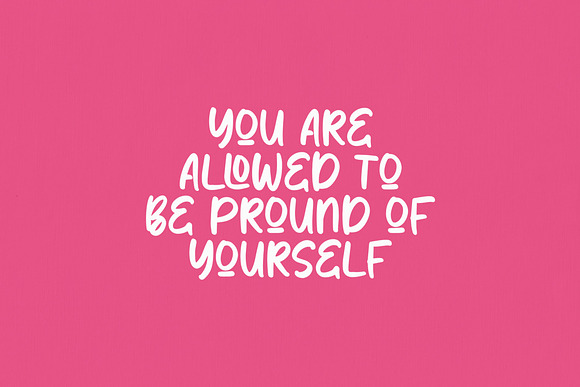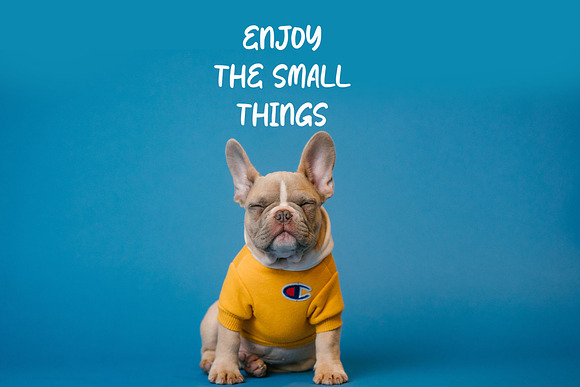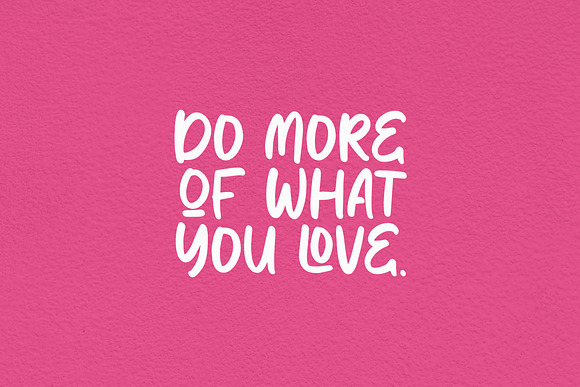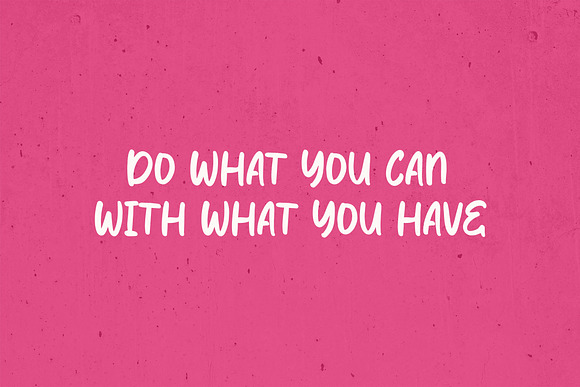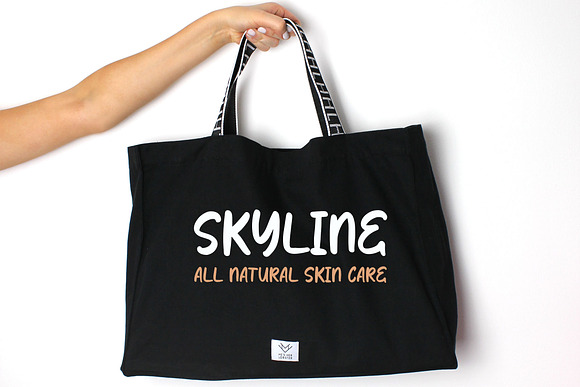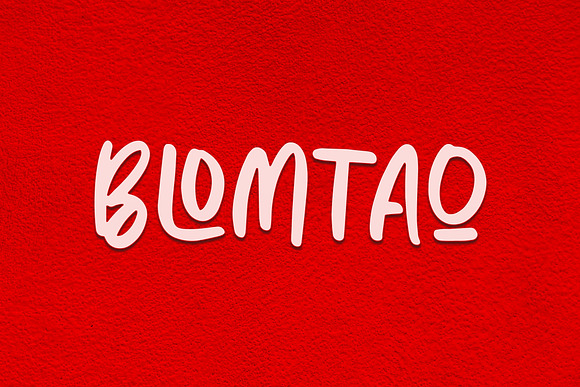
BLOMTAO Brush Font
BLOMTAO - Playful and Cute Brush Font Introducing BLOMTAO, a delightful brush font with a cute and whimsical style. Its unique character shapes bring a fun and lighthearted touch to any design, making it perfect for playful projects, children's products, packaging, and branding. With its charming and quirky appearance, BLOMTAO adds a joyful vibe that enhances your creative work. We appreciate your interest in downloading BLOMTAO, and we are committed to keeping this font updated regularly to meet your design needs.